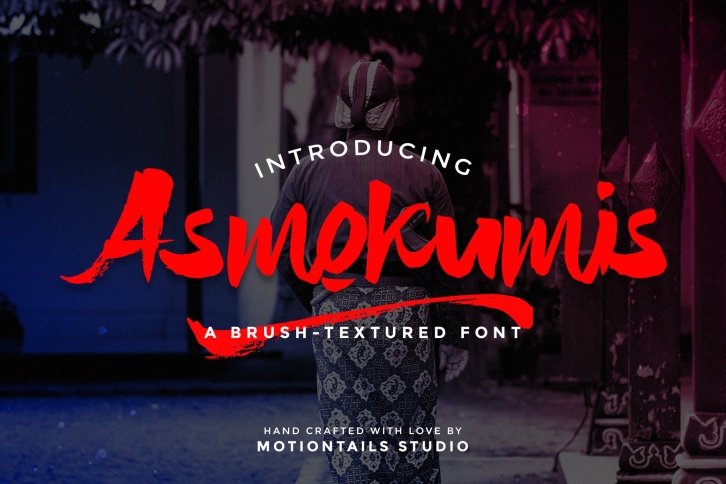
Asmokumis Textured Brush Font Download
Asmokumis Textured Brush is a great font that was designed by Motiontail Studio. Imagine the amount of combinations you can create using this font! The archive is 17.84 MB and it was released on July 29, 2020. Asmokumis Textured Brush looks beautiful on wedding invitations, greeting cards, logos, posters, labels, t-shirt designs, logos, business cards and is perfect for use in ink or watercolor works, fashion, magazines, packaging and food menus, children's books and more!